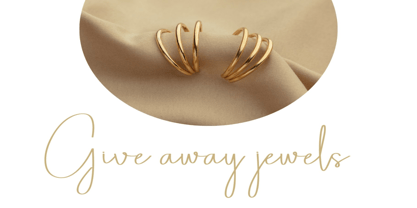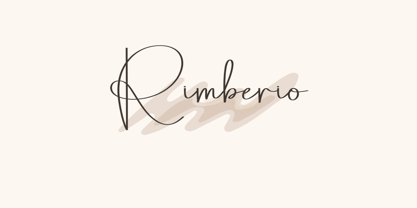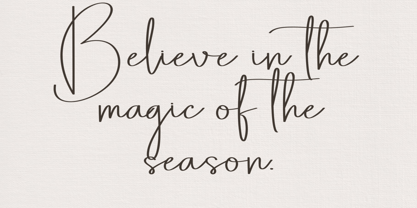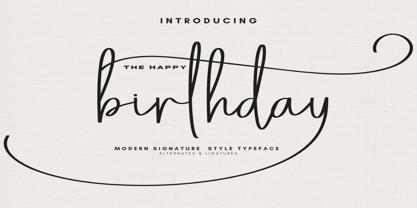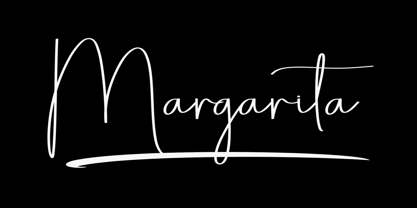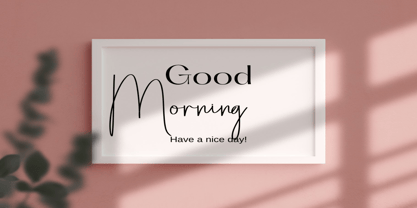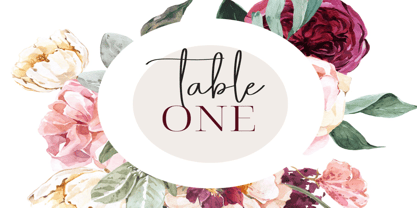
Thehappybirthday signature
by Dream Font
The Thehappybirthday signature Font Family was designed by Lance Hidy and published by Dream Font. Thehappybirthday signature contains 1 styles. More about this family
The HappyBirthday Signature is a lovely and timeless handwritten font. It is the best choice for creating eye catching logos, branding and quotes. Every letter has a unique and beautiful touch, which will make your design come alive!
Designers: Lance Hidy
Foundry: Dream Font